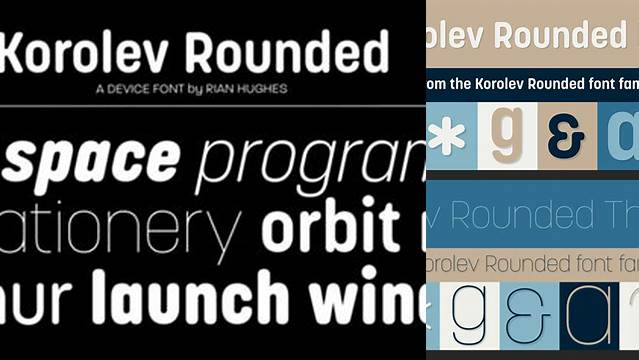
Hey guys! Are you looking for a modern, versatile, and eye-catching font to elevate your design projects? Look no further! In this comprehensive guide, we'll dive deep into the Korolev Rounded Font Family, a fantastic typeface that's making waves in the design world. We'll explore its features, discuss its best uses, and, most importantly, guide you on how to download it for free. So, buckle up and let's get started!
What is the Korolev Rounded Font Family?
The Korolev Rounded Font Family is a contemporary sans-serif typeface characterized by its clean lines, softened edges, and overall friendly appearance. Designed with versatility in mind, it seamlessly adapts to a wide array of design applications, making it a go-to choice for designers across various industries. The rounded terminals of the letters give it a warm and approachable feel, setting it apart from more rigid sans-serif fonts. This makes it particularly effective for projects that aim to convey a sense of trust, friendliness, and modernity. Think of logos for tech startups, websites for creative agencies, or even marketing materials for children's products – the Korolev Rounded Font Family fits right in!
But what truly makes this font family stand out is its comprehensive nature. It typically includes a range of weights, from Light to Bold, and often comes with accompanying italic styles. This variety allows designers to create visual hierarchy and add emphasis within their designs while maintaining a consistent overall aesthetic. The different weights are crucial for creating visual interest. For instance, you might use the Bold weight for headings to grab attention and the Regular weight for body text to ensure readability. The italic styles can be used to highlight specific words or phrases, adding another layer of visual richness.
The design of the Korolev Rounded Font Family carefully balances legibility and aesthetics. The letterforms are clear and well-defined, ensuring that text remains readable even at smaller sizes. This is especially important for digital applications, such as websites and mobile apps, where text needs to be legible on various screen sizes and resolutions. At the same time, the rounded edges and subtle curves give the font a unique personality, preventing it from feeling generic or bland. This careful attention to detail is what makes the Korolev Rounded Font Family a truly exceptional typeface.
In essence, the Korolev Rounded Font Family is more than just a font; it's a design tool that can significantly impact the overall look and feel of your projects. Its versatility, legibility, and distinctive personality make it a valuable asset for any designer's toolkit. So, if you're looking for a font that can convey modernity, friendliness, and professionalism, this is definitely one to consider.
Key Features of the Korolev Rounded Font
The Korolev Rounded Font Family isn't just another typeface; it's a carefully crafted design tool packed with features that make it a favorite among designers. Let's break down some of the key characteristics that make this font so special. First and foremost, the rounded terminals are the defining feature. They soften the overall appearance of the font, giving it a friendly and approachable vibe. This makes it ideal for brands that want to project a sense of trust and openness. Imagine a financial institution using this font – it instantly feels less intimidating and more customer-friendly, right?
Beyond the rounded edges, the font boasts excellent legibility. The letterforms are designed with clarity in mind, ensuring that text remains readable even at small sizes or on screens with lower resolutions. This is crucial for websites, apps, and any other digital applications where readability is paramount. Think about reading a long paragraph of text – if the font is difficult to read, you're likely to lose interest quickly. The Korolev Rounded Font Family avoids this problem by prioritizing clear and well-defined letter shapes.
Another key feature is the multiple weights and styles. The font family typically includes a range of weights, from Light to Bold, as well as italic variations. This gives designers a lot of flexibility when it comes to creating visual hierarchy and emphasis within their designs. You can use the Bold weight for headings to grab attention, the Regular weight for body text to ensure readability, and the italic style to highlight specific words or phrases. This versatility makes the font suitable for a wide range of applications, from print materials to web design.
The Korolev Rounded Font Family also stands out for its modern and clean aesthetic. It has a contemporary feel that works well with a variety of design styles. Whether you're creating a minimalist website, a vibrant marketing campaign, or a sophisticated logo, this font can adapt to your needs. Its clean lines and simple shapes make it easy to pair with other fonts and design elements, giving you even more creative freedom.
In addition to these core features, the font often includes extended character sets, supporting a wide range of languages and symbols. This is particularly important for projects that target a global audience. You want to make sure that your message is clear and consistent, no matter where your audience is located. The Korolev Rounded Font Family's support for multiple languages helps you achieve this goal.
In short, the Korolev Rounded Font Family is a versatile and well-designed typeface that offers a lot of value to designers. Its rounded terminals, excellent legibility, multiple weights and styles, modern aesthetic, and extended character set make it a top choice for a wide range of projects. So, if you're looking for a font that combines style and functionality, this is definitely one to consider.